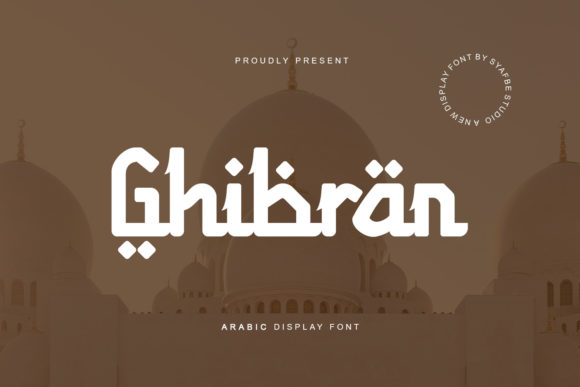
Ghibran Font: A Stylish and Unique Display Font Inspired by Arabic Art The Ghibran Font is a cool and uniquely
Continue readingIntroducing Ghibran Font: A Stunning Display Font Inspired by Arabic Art Are you tired of using the same old fonts